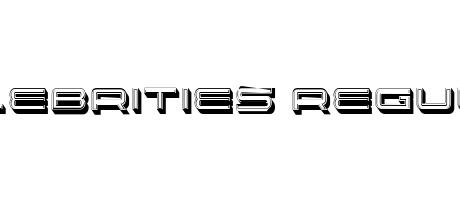
Celebrities
Celebrities Regular is a bold, futuristic display font. Its strong, geometric letterforms feature a striking, double-lined, extruded 3D effect, giving it a sense of depth and solidity. The clean lines and sharp angles create a modern, almost technological feel. It projects confidence and a sense of power.